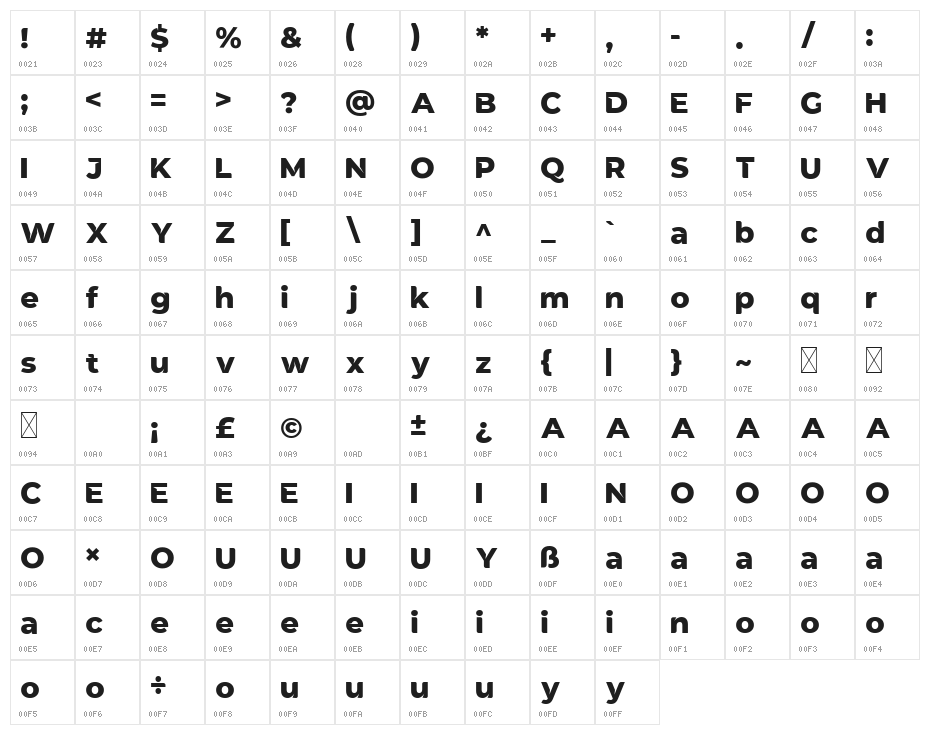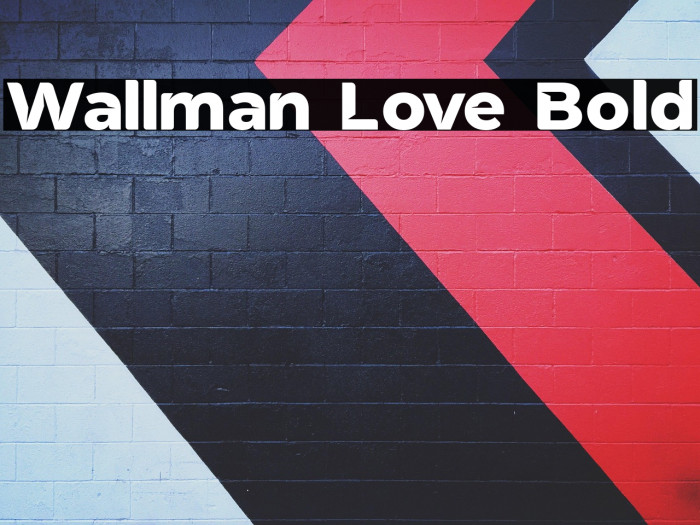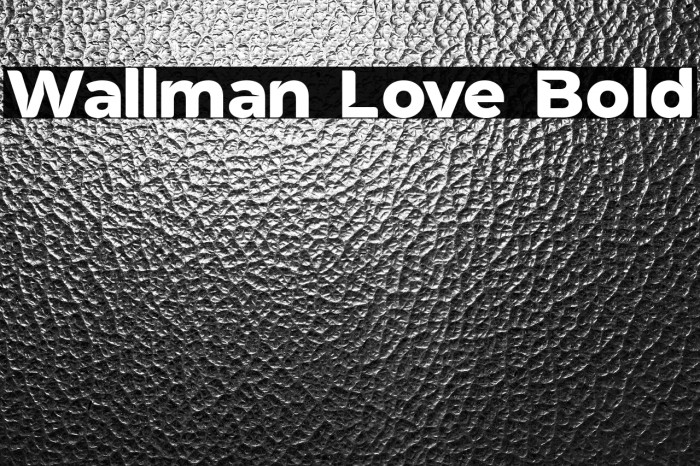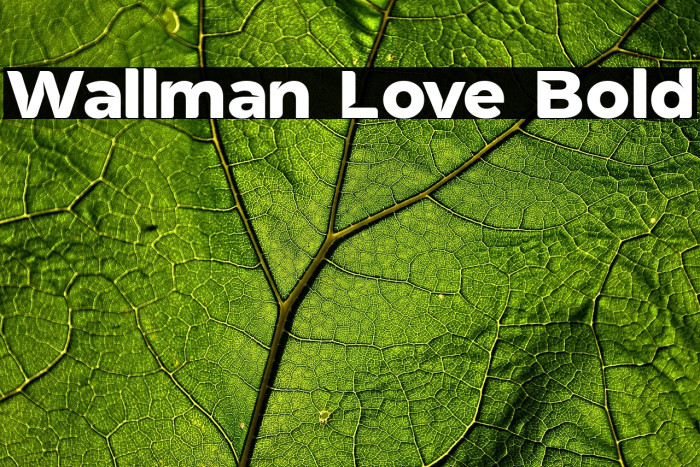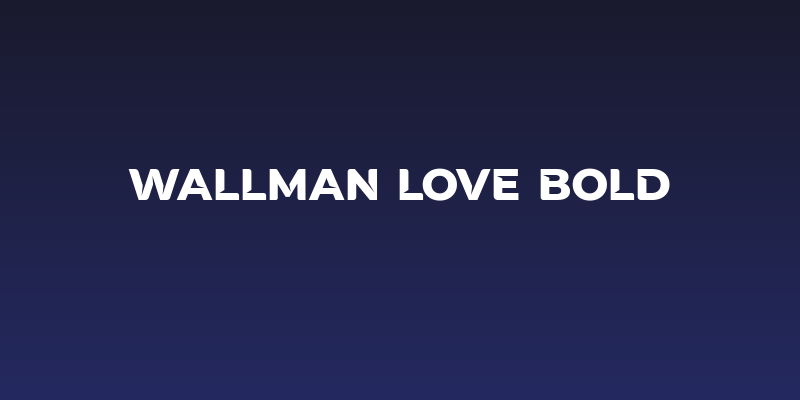
Wallman Love Bold Font
Wallman Love Bold Description
This font features bold, rounded characters with a modern and friendly appearance. The uppercase and lowercase letters are well-proportioned, with a consistent stroke width that gives a strong and cohesive look. The numerals and special characters maintain the same boldness, ensuring uniformity across all text elements. The overall design is clean and straightforward, making it suitable for a variety of applications where clarity and impact are essential.
| Proposed Projects | Ideal for branding, headlines, posters, and digital media where a strong, approachable presence is desired. |